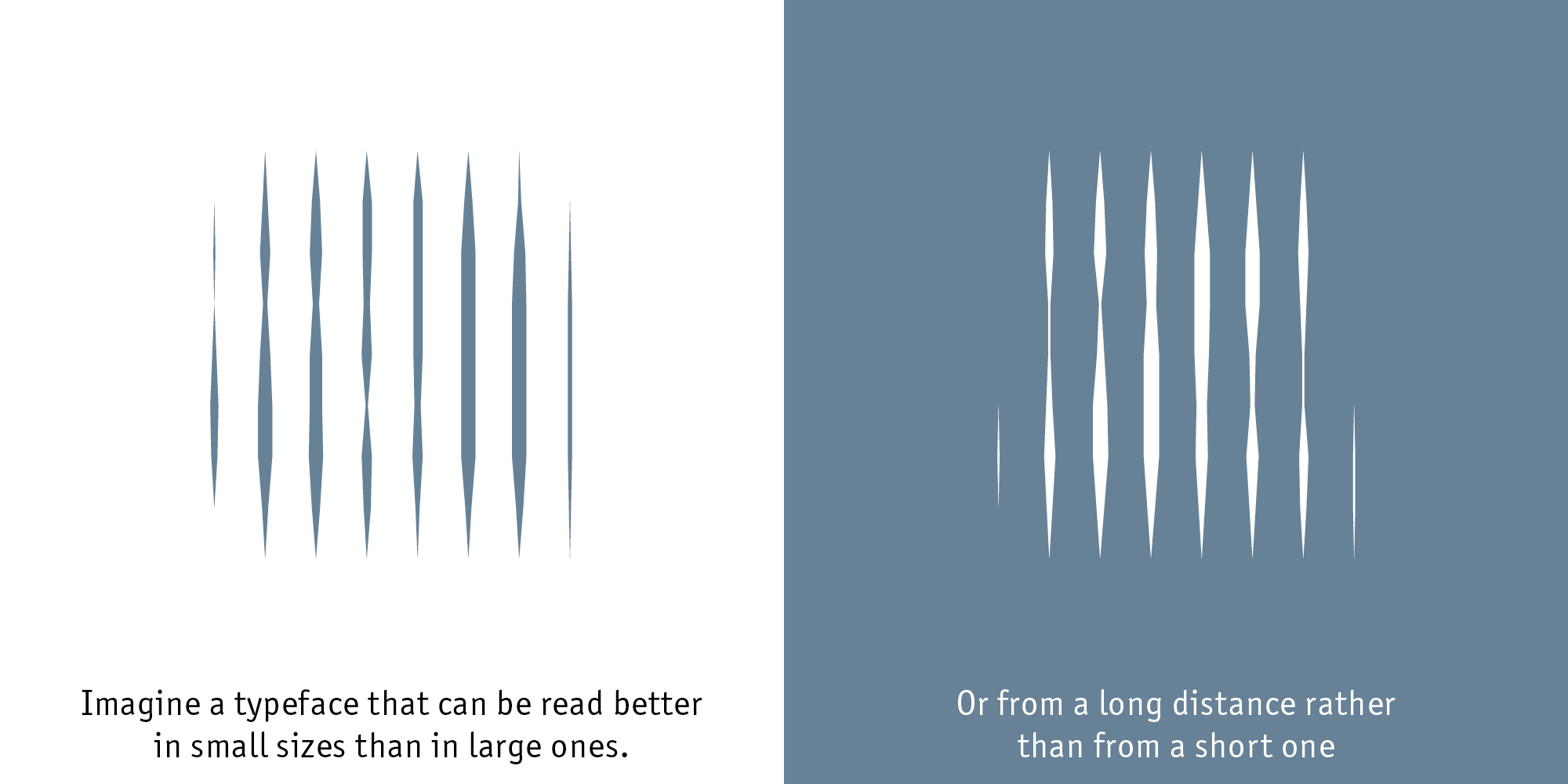
Kontext V Free Download
Kontext V Font Free Download
Kontext V Font is perfect for contextual advertising agencies, strategic communications firms, intelligent content platforms, adaptive technology companies, contextual marketing solutions, sophisticated data analytics brands, smart media organizations, and precision-targeted communications.
What makes Kontext V Font truly exciting is its intelligent ability to embody contextual awareness and adaptive communication through systematically refined letterforms that represent the sophisticated understanding of environment, audience, and situational relevance in modern communication design. This advanced typeface features contextually responsive characteristics with adaptive elements that instantly convey strategic thinking, intelligent design, and situational awareness, making it the perfect choice for organizations specializing in contextual solutions, creating adaptive content, and communicating with audiences who value precision, relevance, and intelligent responsiveness to changing circumstances and environmental factors.
The Kontext V Font family encompasses ultra-light, light, regular, medium, bold, and adaptive weights, each designed to respond effectively across different contextual applications, along with variable font technology that enables dynamic adaptation, providing designers with comprehensive tools for creating contextually aware brand experiences and adaptive communications that resonate with sophisticated audiences seeking intelligent design solutions.
Marketing agencies and technology companies will discover that Kontext V Font Free Download delivers the strategic sophistication and contextual intelligence needed to communicate effectively with audiences who expect personalized, relevant, and situationally appropriate messaging. This versatile typeface excels in both complex data visualization applications and adaptive interface designs, maintaining its contextual character while ensuring optimal performance across all intelligent communication contexts.
The font's intelligently engineered construction demonstrates exceptional attention to both contextual responsiveness and functional versatility, with adaptively optimized proportions that ensure appropriate presence while maintaining superior legibility across diverse situational environments. From personalized marketing campaigns to adaptive user interfaces, this contextually aware typeface maintains its intelligent appeal while providing the reliability needed for comprehensive adaptive communication applications. Strategic brands appreciate how this font effortlessly communicates intelligence, relevance, and distinguished American contextual design excellence through superior situationally-responsive typography.